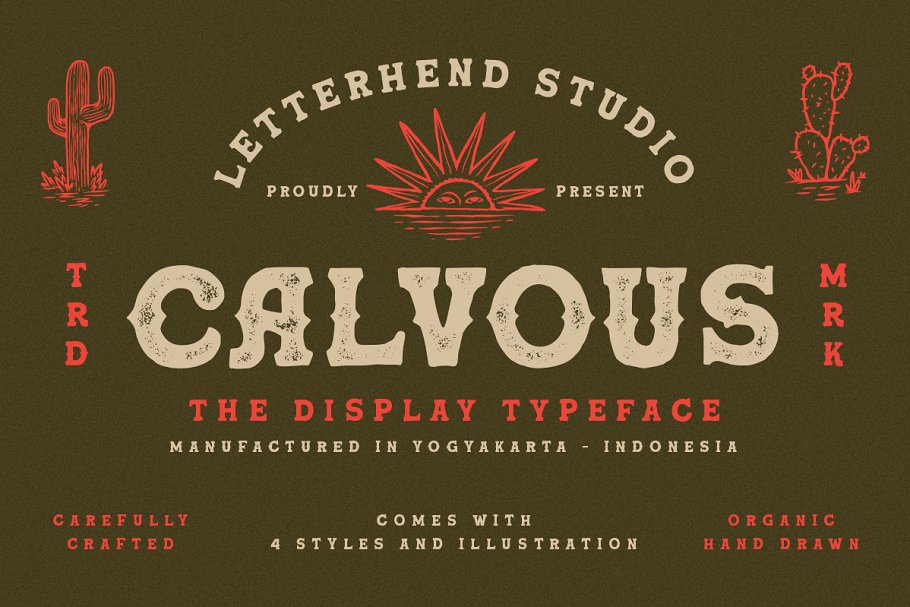
Are you looking to add a touch of classic western to your designs? Look no further than Calvous, the slab serif typeface created by Hendry Juanda. With four unique fonts to choose from, you can play around with different styles and create eye-catching designs that are sure to impress.
But that's not all - this product also includes 17 hand-drawn illustration packs and 6 logo templates. Imagine the possibilities! You can elevate your designs and make them stand out from the crowd with these added elements.
Calvous is perfect for a variety of design needs, whether you're working on a branding project or creating eye-catching graphics for social media. The slab serif font family is a popular choice for designers because of its bold and strong appearance, which can make your message pop and leave a lasting impression on your audience.
And don't worry about versatility - Calvous is suitable for a wide range of projects, from vintage to modern, and everything in between. The hand-drawn illustrations and logo templates included in this product are also versatile and can be used in a variety of contexts.